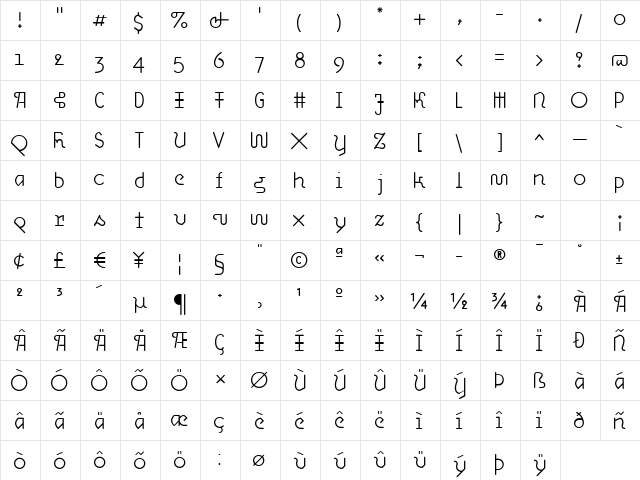
OHmygod Light
Design Context for OHmygod Typeface
OHmygod is a composed and adaptable typeface that performs quietly and consistently across a wide range of design contexts. The delicate stroke weight brings airiness and refinement to layouts.